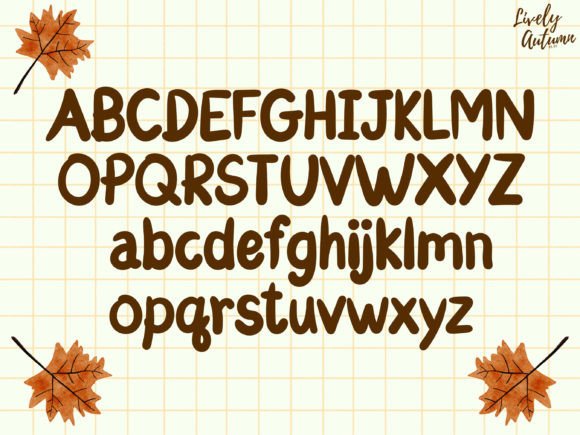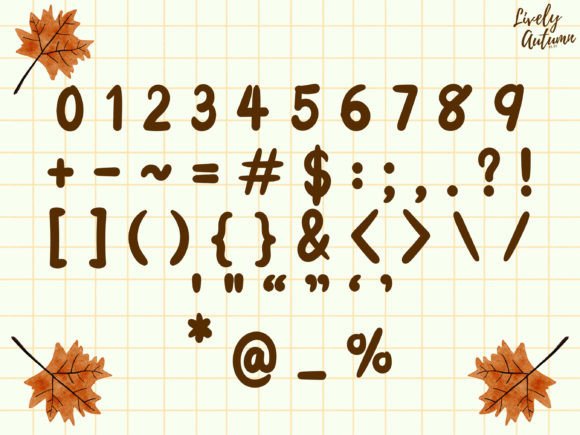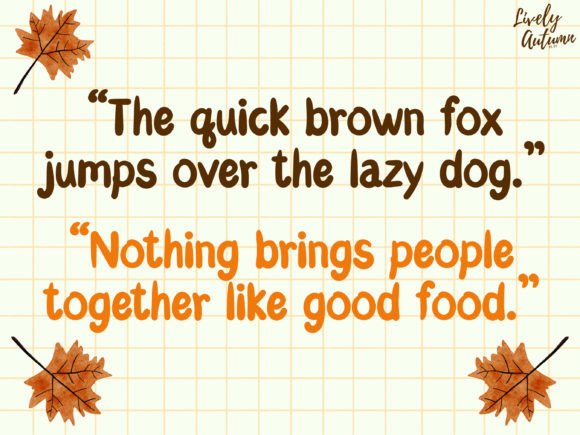
Introduction to Maple Syrup Font
As you sit at your desk, surrounded by scraps of paper, half-empty cups of coffee, and a sea of open tabs on your computer, you’re hit with a moment of creative clarity. You need a font that’s going to make your project pop – something that’s going to grab attention and make your message stand out. That’s where the Maple Syrup Font comes in.
This charming, bold, and chubby sans serif handwritten font is the perfect addition to any design project. Whether you’re working on an invitation, poster, social media graphic, journal, or anything in between, the Maple Syrup Font is sure to bring a touch of warmth and personality to your work.
As a valuable resource for designers, the Maple Syrup Font offers a free download with a transparent background, making it easy to integrate into your high-quality designs. With its playful, handwritten feel, this font is sure to elevate your creative project and take it to the next level.
Key Features of Maple Syrup Font
- Unique, hand-drawn design with a transparent background for easy customization
- Perfect for adding a touch of elegance and sophistication to designs, logos, and branding materials
Honest Review: Maple Syrup Font
As a designer, I’ve worked with my fair share of fonts, and I have to say that the Maple Syrup Font has left a sweet impression (pun intended) on me. ✨ This font is perfect for any creative project that requires a touch of whimsy and elegance.
One of the standout features of this font is its transparent background, making it a great design resource for designers who need to add a subtle touch to their work. The font is also available for free download, which is always a bonus in my book.
- High-quality design that looks great on various devices
- Perfect for creative projects that require a unique touch
- Not ideal for large body text (it’s better suited for headings and titles)
Overall, I’m impressed with the Maple Syrup Font, and I would definitely recommend it to fellow designers looking for a unique and high-quality design resource.
Use the Maple Syrup Font in creative projects, such as designing menus, labels, or packaging for a maple syrup brand. The font’s unique design will help your brand stand out. You can also use it in educational materials, such as textbooks or worksheets, where a transparent background can help with text overlay.